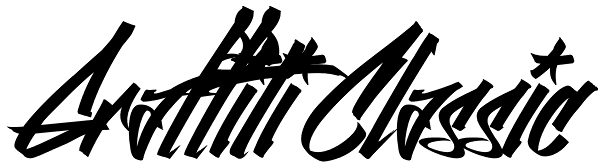
Graffiti Classic
Graffiti Classic is a graffiti font that blends the improvisational urban quality of graffiti with the smoothness and regularity of a typeface. Growing up in Brooklyn, graffiti appeared to me as an explosion of expression and color in a sea of...
Graffiti Classic
Graffiti Classic Taglets